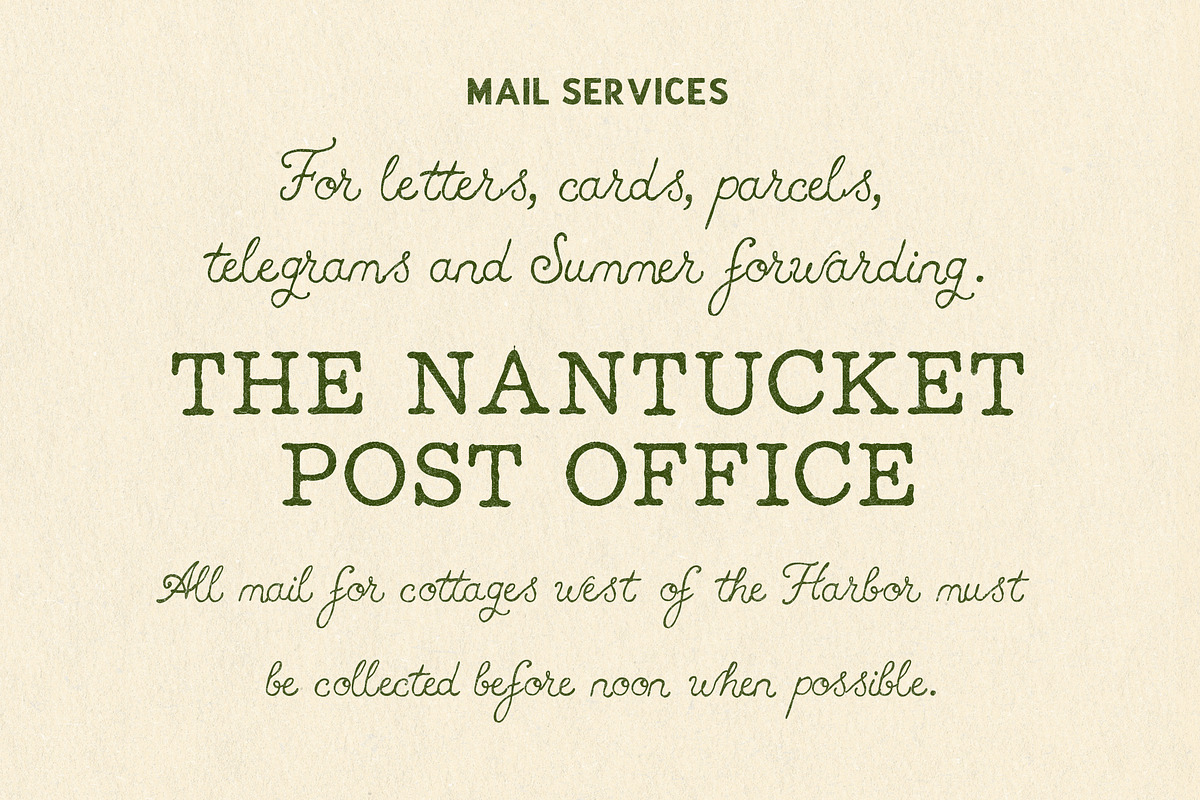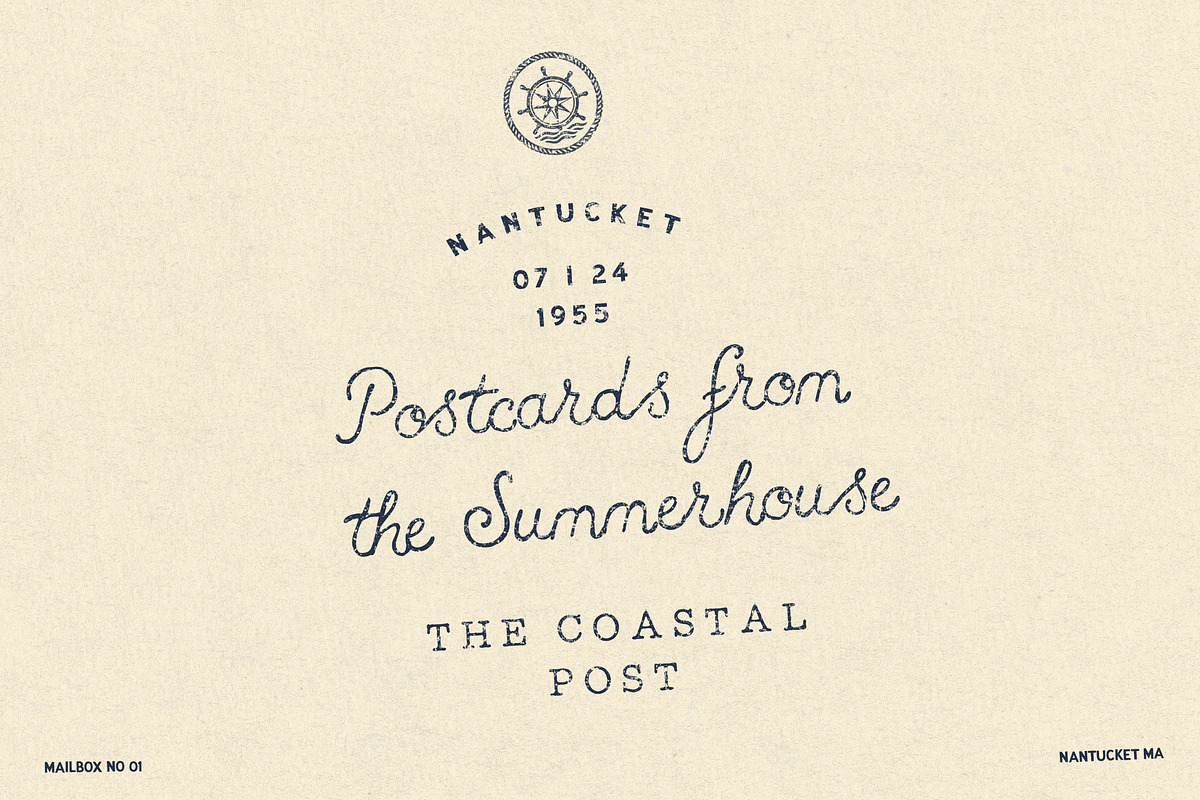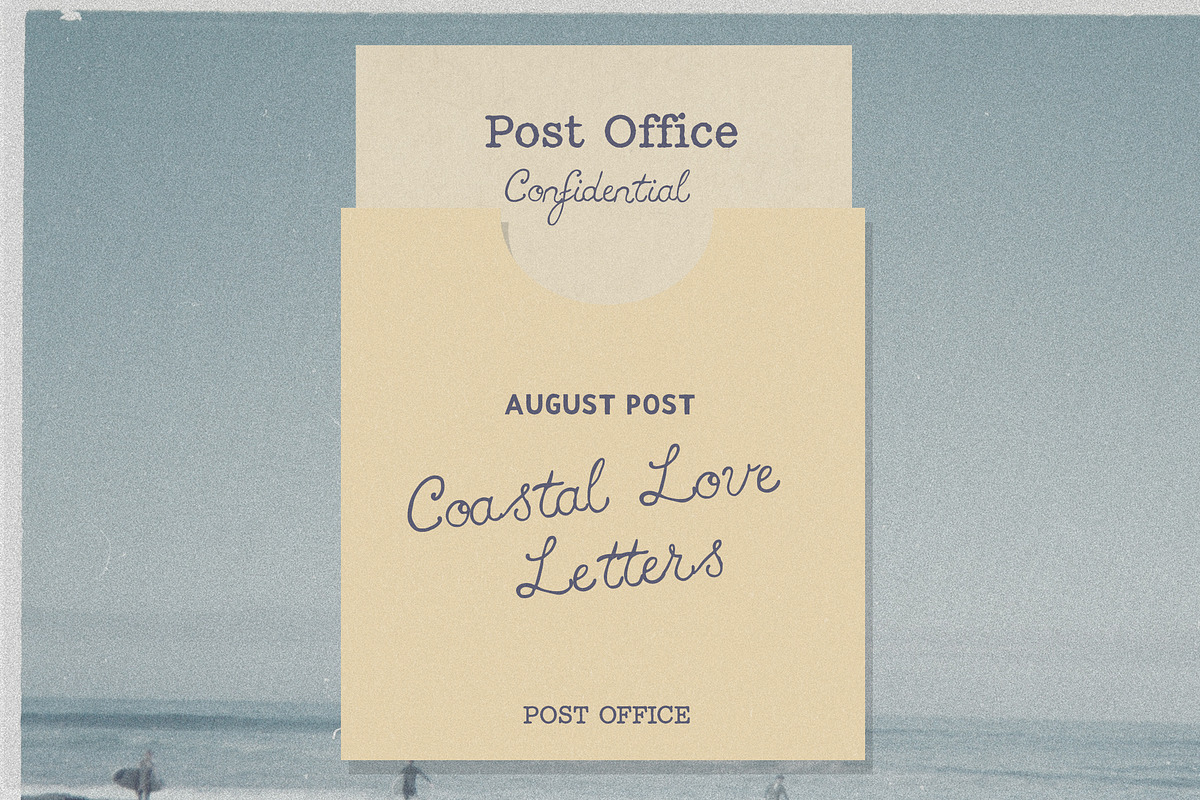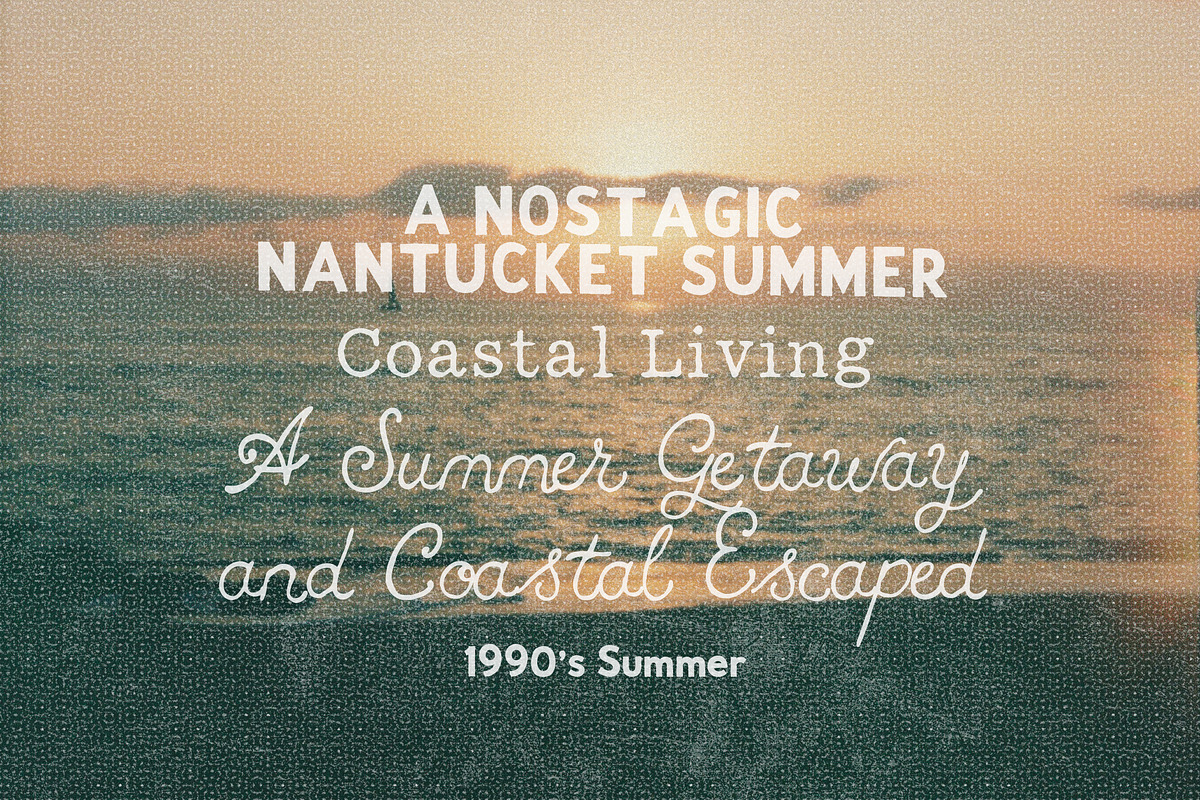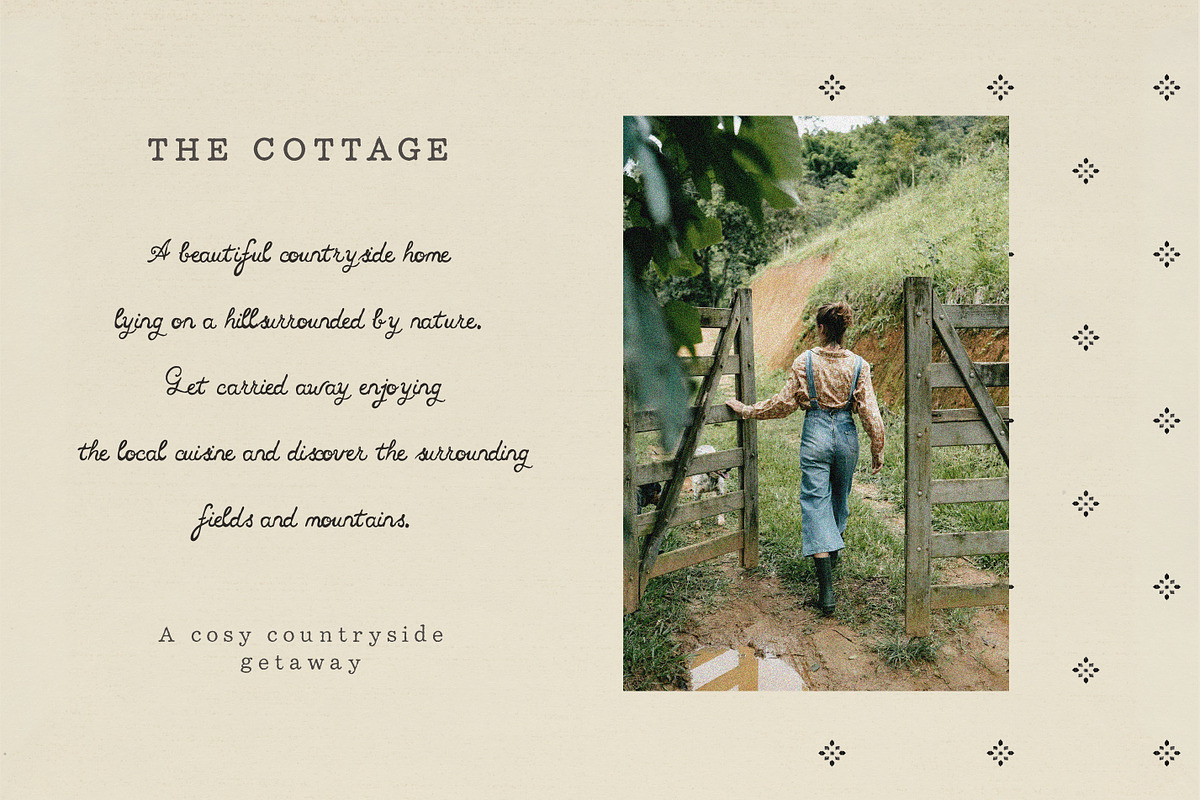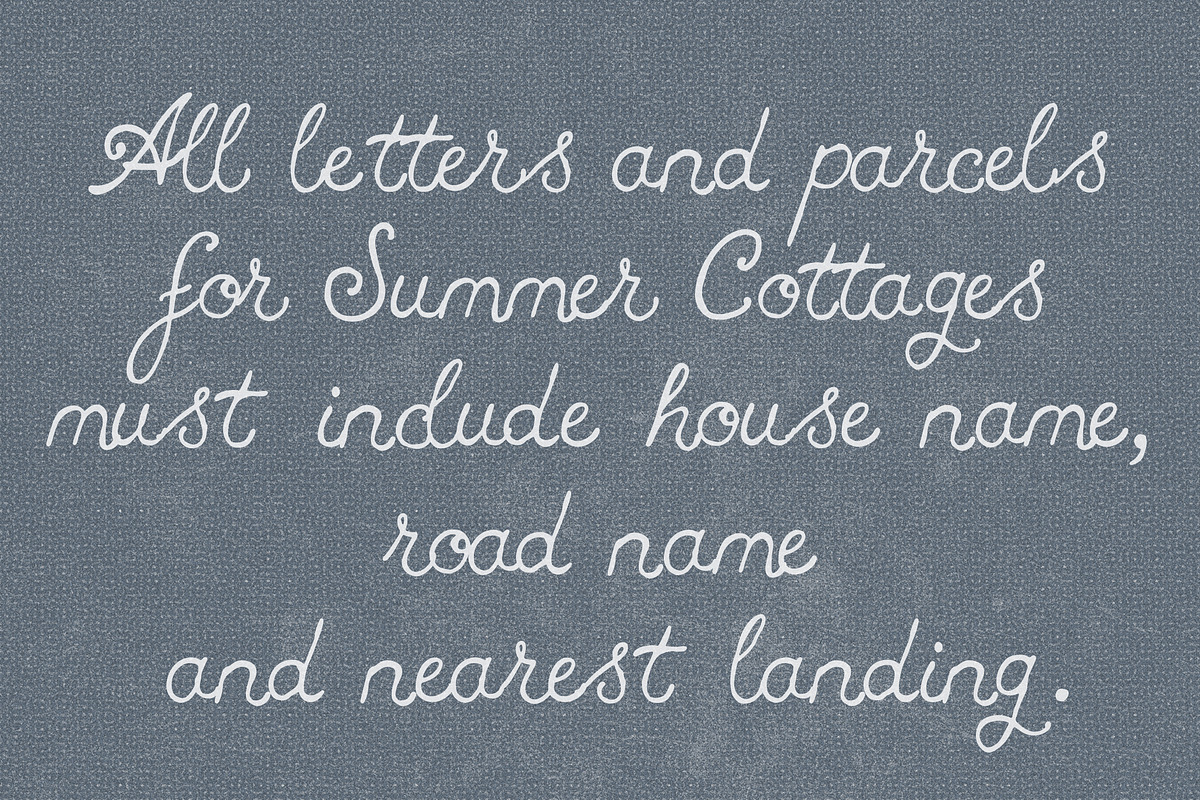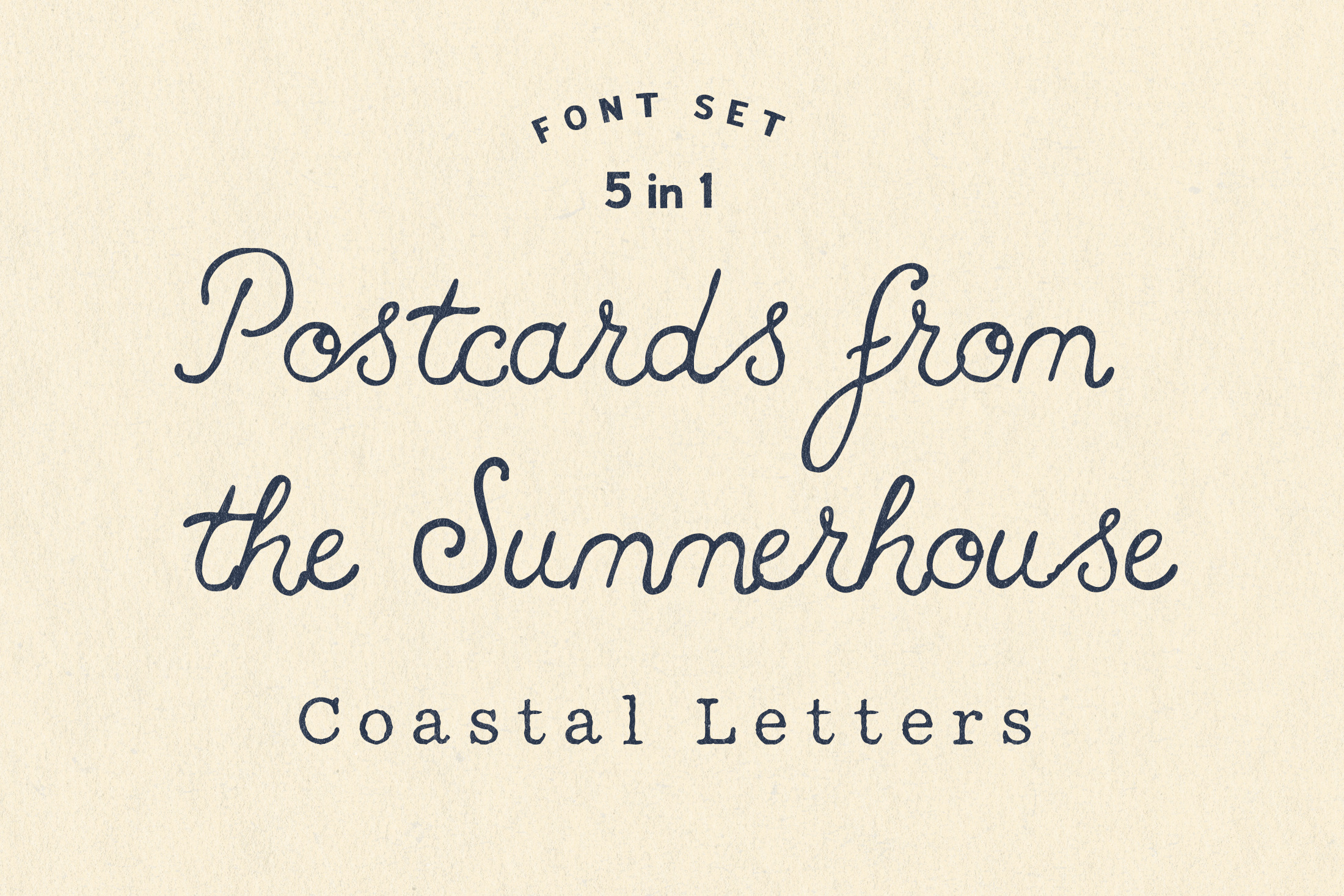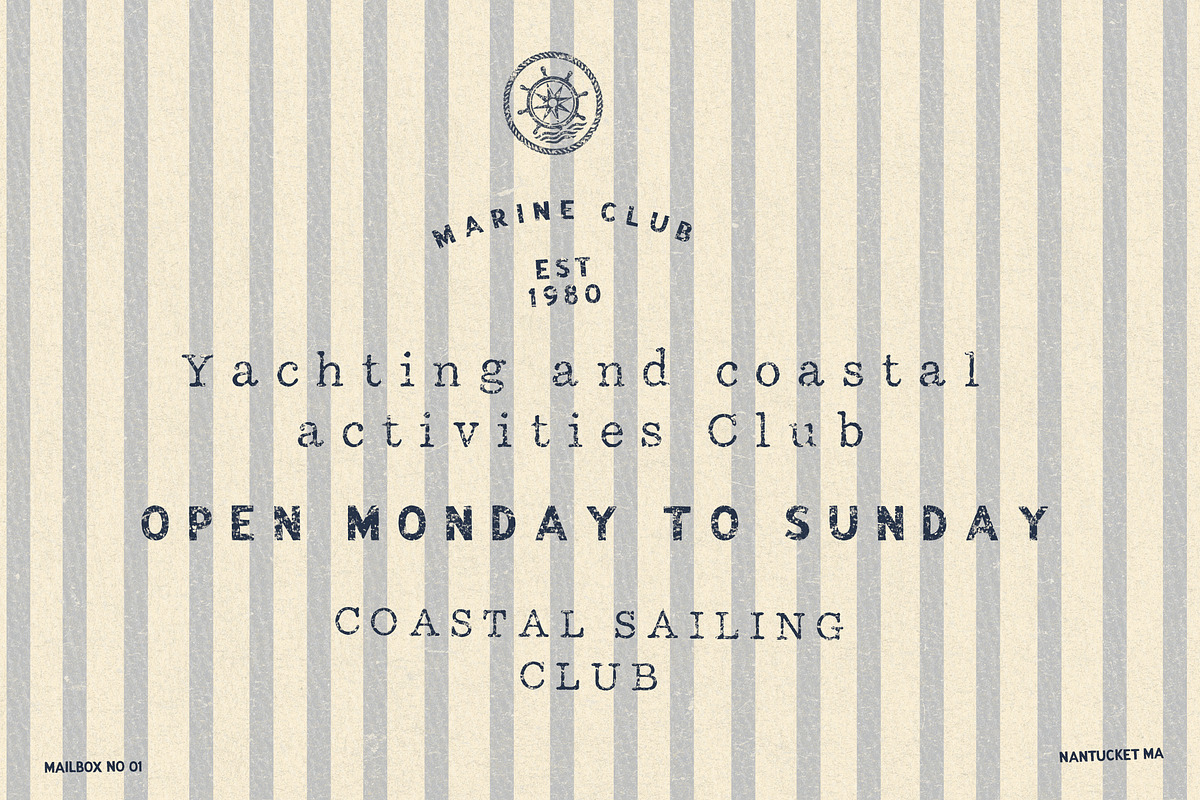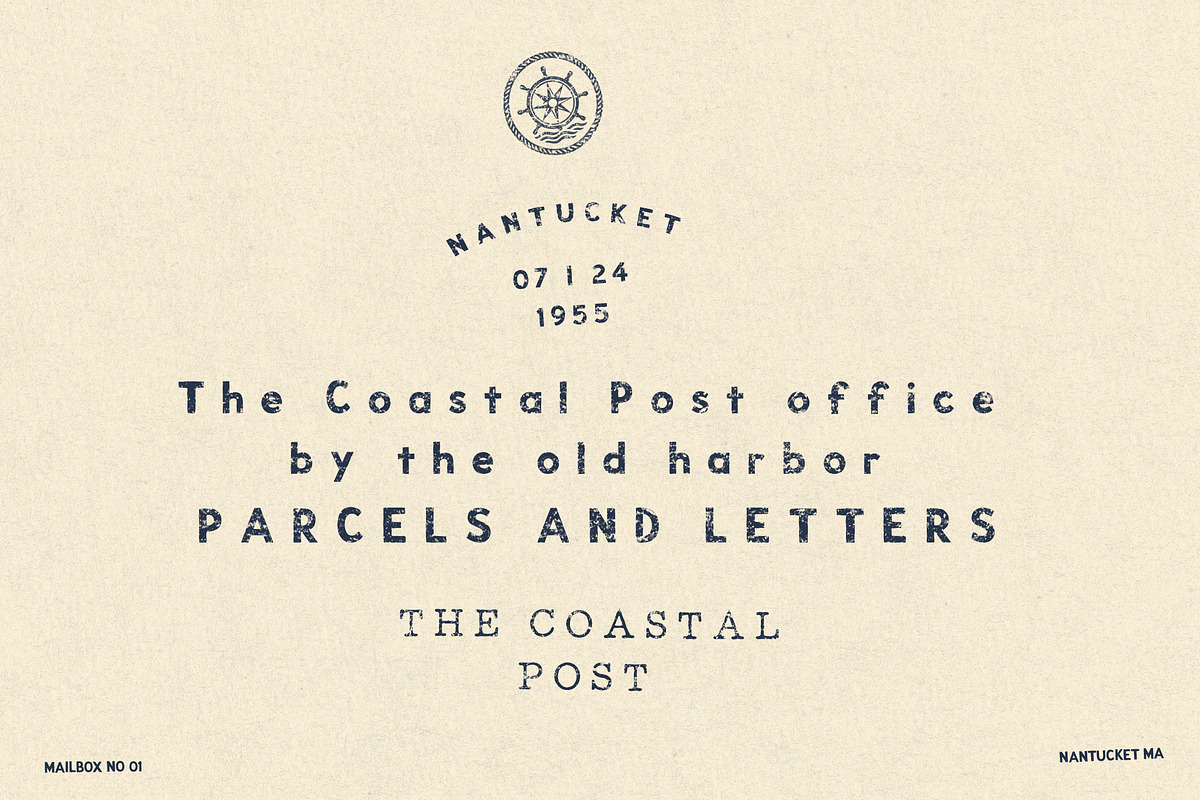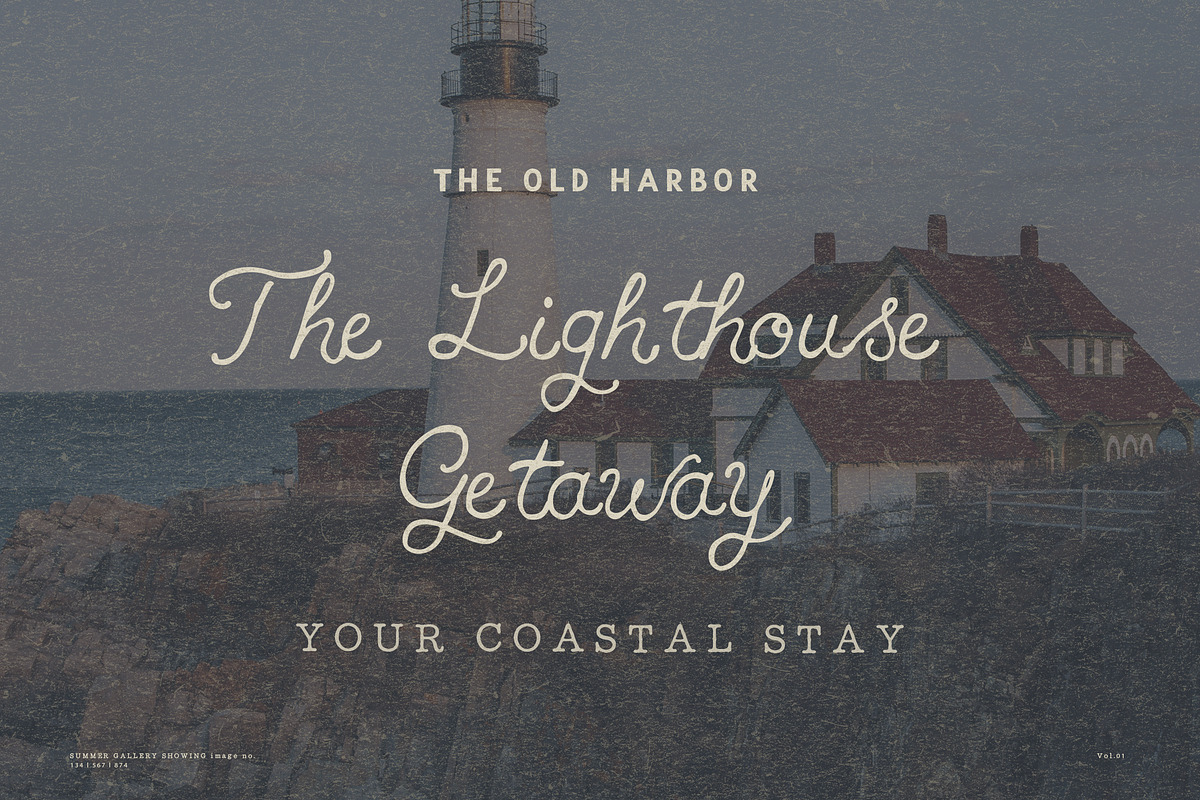
Handwritten Coastal Font Trio
Postcards from the Summerhouse is a vintage handwritten font collection with a timeless coastal charm, inspired by old seaside post offices, handwritten postcards, summer correspondence and classic East Coast heritage. With its natural hand-lettered look, the script font adds an effortlessly handcrafted charm with a touch of whimsy, while the serif brings a typewriter look to your designs. The handmade sans brings the finishing touches with rustic texture and a sun-bleached Nantucket flair.
Ideal for a romantic yet authentic style with a vintage coastal aesthetic, nautical character and refined summerhouse feel.